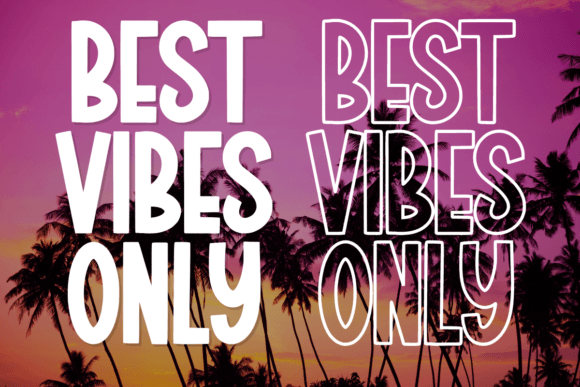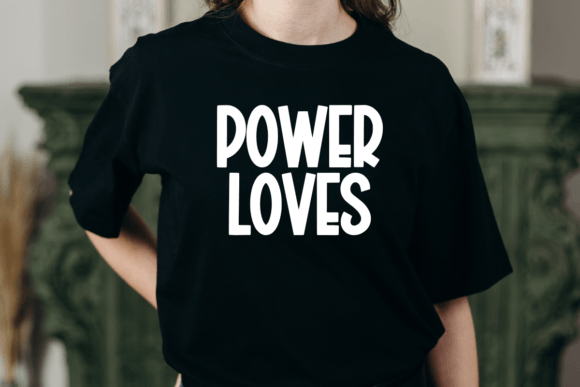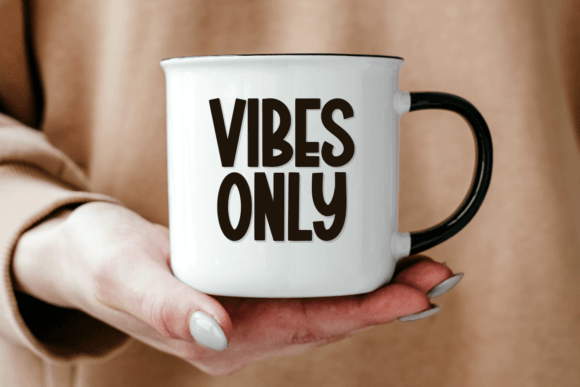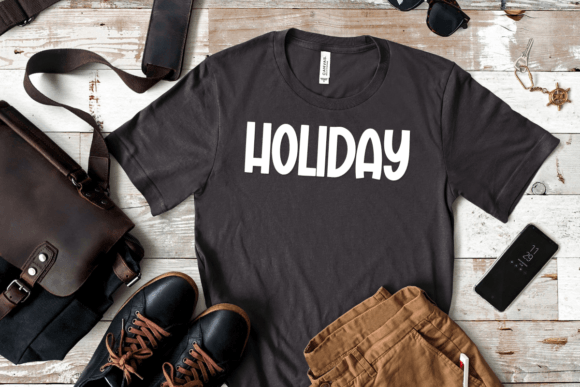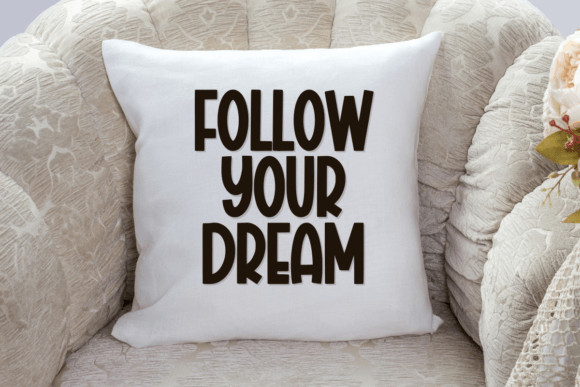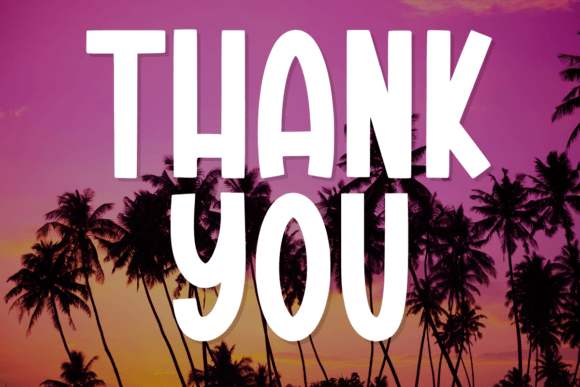
Introducing Hehe Font: The Fun, Bold, and Casual Display Font You Need!
Are you tired of using the same old fonts in your creative projects? Do you want to add a touch of fun and personality to your designs? Look no further than Hehe Font! This bold and casual display font is perfect for designers, crafters, and anyone looking to add some excitement to their work.
What is Hehe Font?
Hehe Font is a unique and playful font that is sure to make your designs stand out. With its bold and casual style, it’s perfect for use in a variety of creative projects, from posters and flyers to social media graphics and craft projects. The font is easy to read and has a friendly, approachable feel that’s sure to appeal to a wide range of audiences.
Key Features of Hehe Font
- Fun and playful style: Hehe Font has a unique and playful style that’s sure to add some personality to your designs.
- Bold and casual: The font is bold and casual, making it perfect for use in a variety of creative projects.
- Easy to read: Despite its bold style, Hehe Font is easy to read, even at smaller sizes.
- Versatile: Hehe Font can be used in a wide range of creative projects, from posters and flyers to social media graphics and craft projects.
Why Use Hehe Font?
There are many reasons why you should consider using Hehe Font in your creative projects. Here are just a few:
- Add some personality to your designs: Hehe Font is a great way to add some personality and fun to your designs.
- Stand out from the crowd: With its bold and playful style, Hehe Font is sure to make your designs stand out from the crowd.
- Perfect for creative projects: Hehe Font is perfect for use in a wide range of creative projects, from craft projects to social media graphics.
Examples of Hehe Font in Use
Hehe Font can be used in a wide range of creative projects. Here are a few examples:
- Posters and flyers: Hehe Font is perfect for use in posters and flyers, adding a bold and playful touch to your designs.
- Social media graphics: Hehe Font is also great for use in social media graphics, such as Facebook posts and Instagram stories.
- Craft projects: Hehe Font can be used in a variety of craft projects, from handmade cards to DIY decorations.
Tips and Tricks for Using Hehe Font
Here are a few tips and tricks to keep in mind when using Hehe Font:
- Experiment with different sizes: Hehe Font looks great at a variety of sizes, so don’t be afraid to experiment.
- Pair with other fonts: Hehe Font pairs well with a variety of other fonts, so try pairing it with some of your other favorites.
- Use it sparingly: Hehe Font is bold and playful, so use it sparingly to add emphasis to your designs.
Hehe Font is a fun, bold, and casual display font that’s perfect for designers, crafters, and anyone looking to add some excitement to their work. With its easy-to-read style and versatile design, it’s sure to become a favorite in your font collection. So why wait? Download Hehe Font today and start adding some personality to your designs!